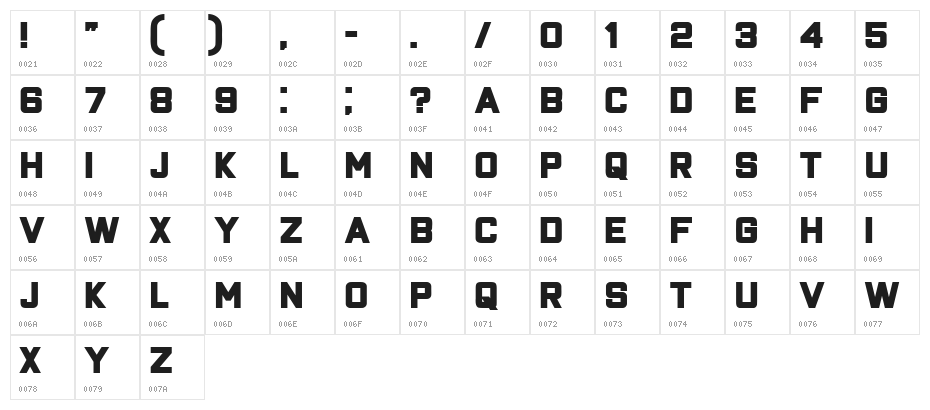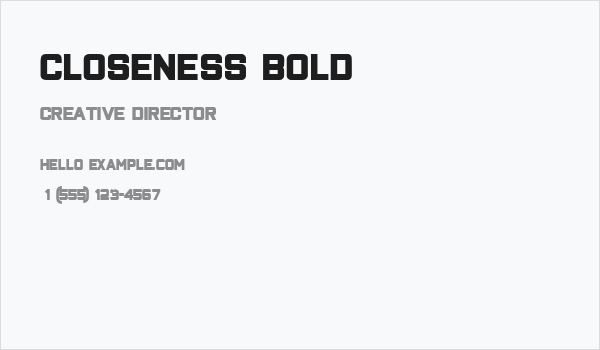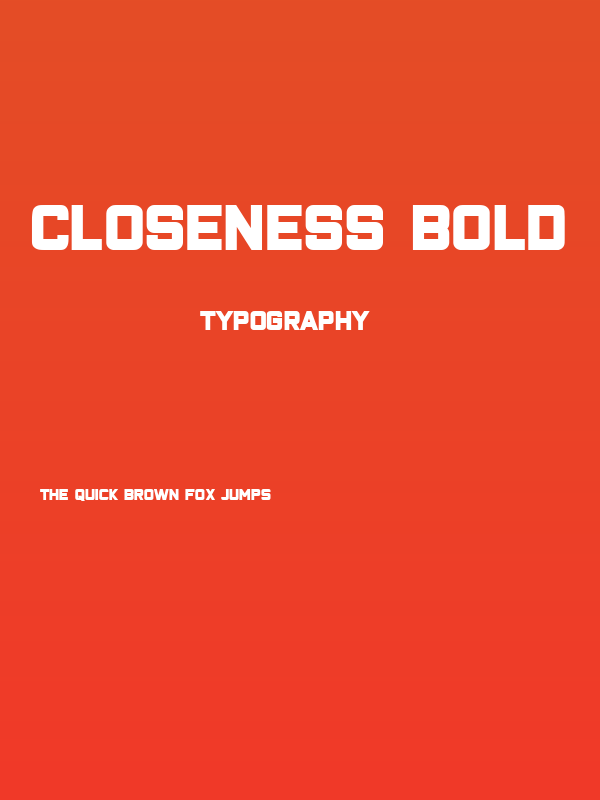
Closeness Bold Font
Closeness Bold Description
This font features a bold and impactful design, characterized by thick, uniform strokes that convey strength and stability. The characters are constructed with a geometric precision, offering a modern and clean aesthetic. The uppercase letters are particularly striking, with a consistent height and width that create a cohesive look. The numerals and special characters maintain the same boldness, ensuring readability and emphasis. This font's strong presence makes it ideal for attention-grabbing headlines and titles.
| Proposed Projects | Ideal for branding, advertising, posters, and any project requiring a strong visual impact. |